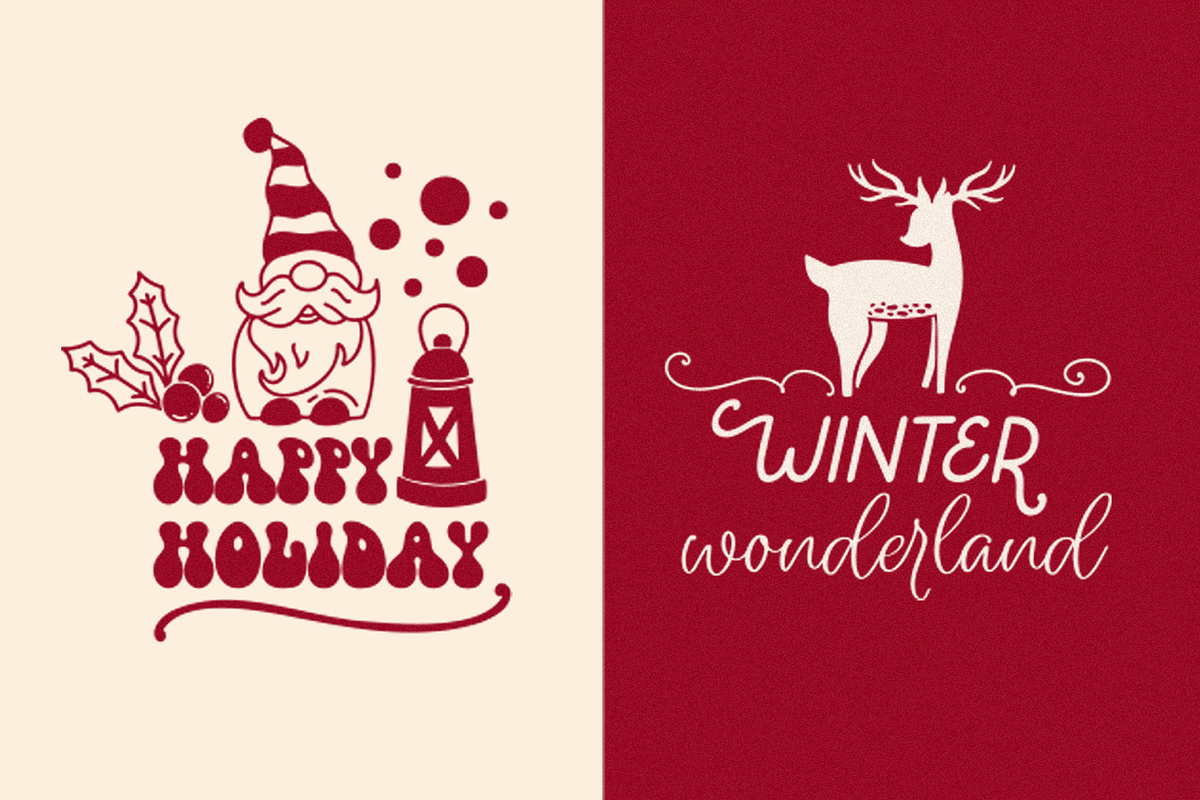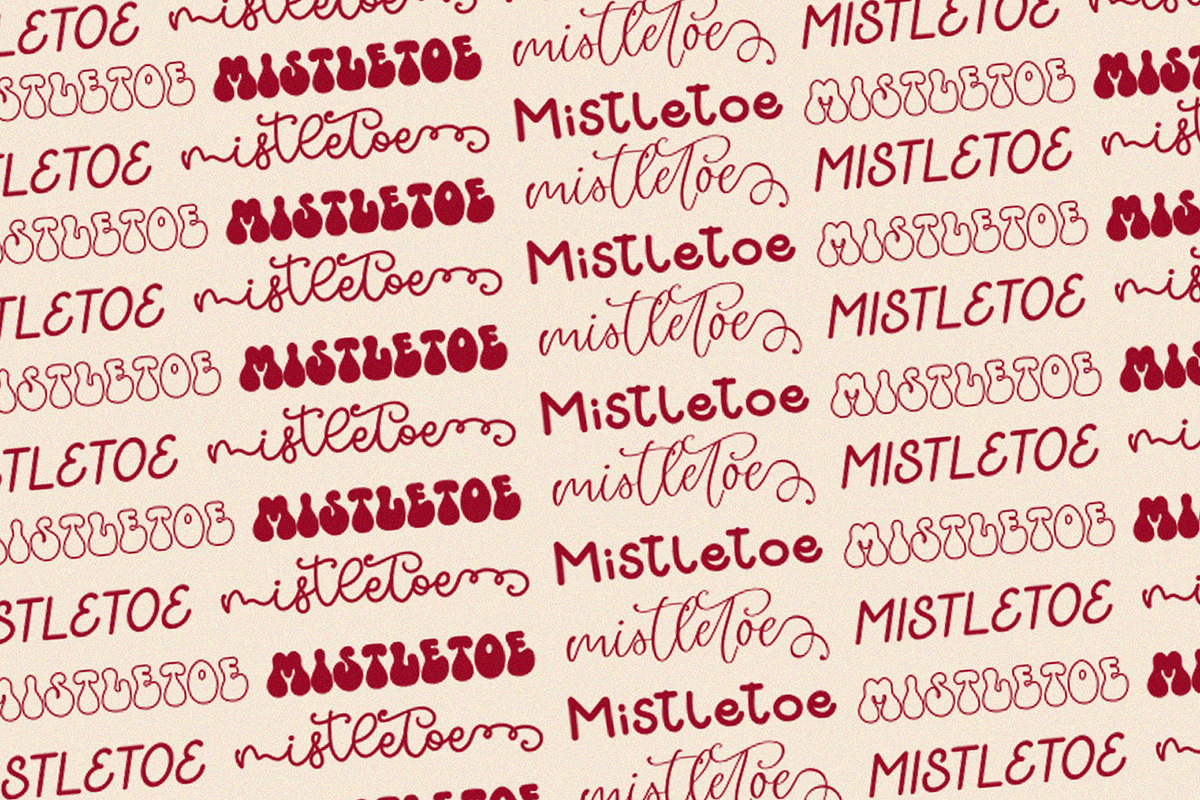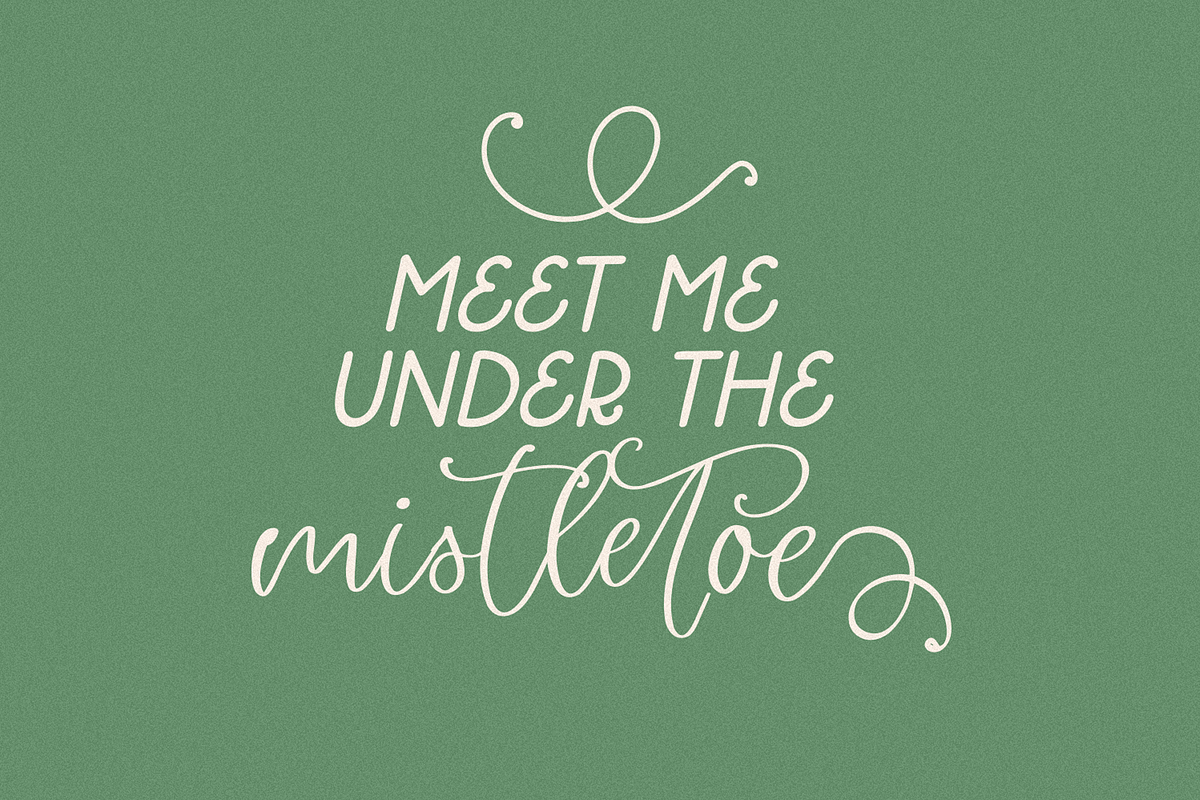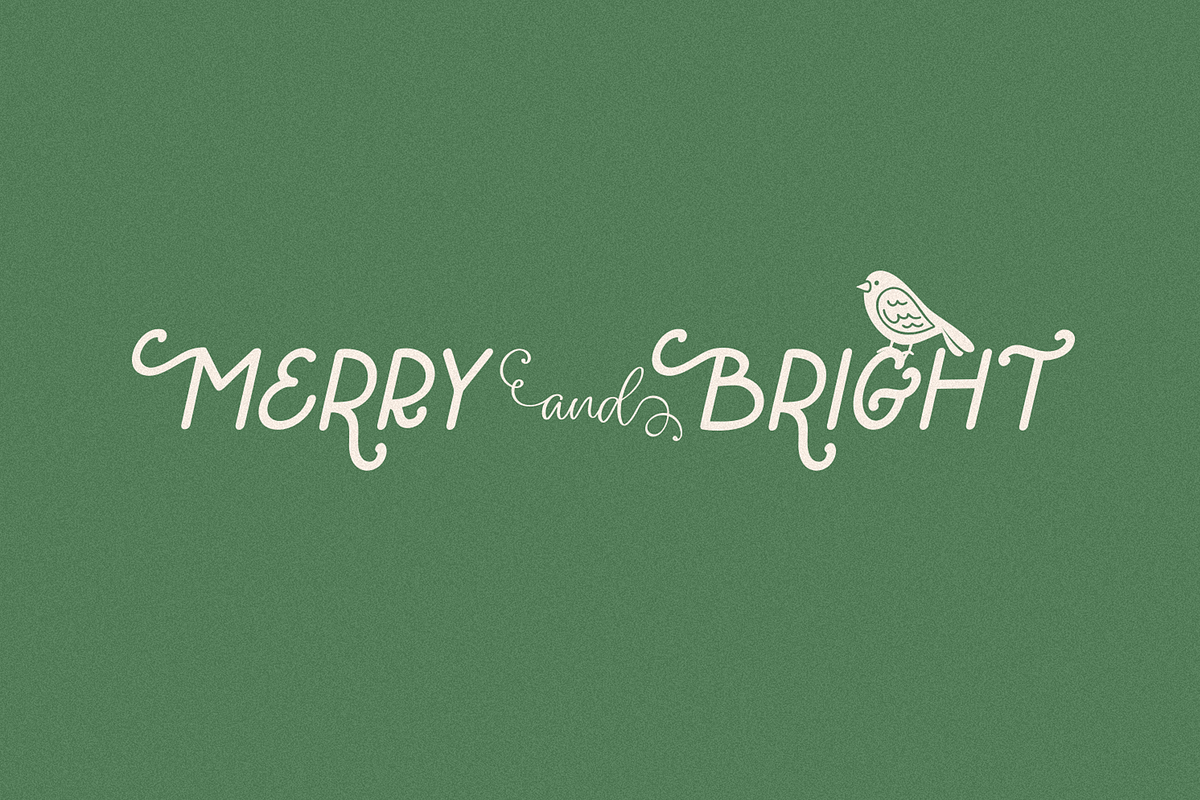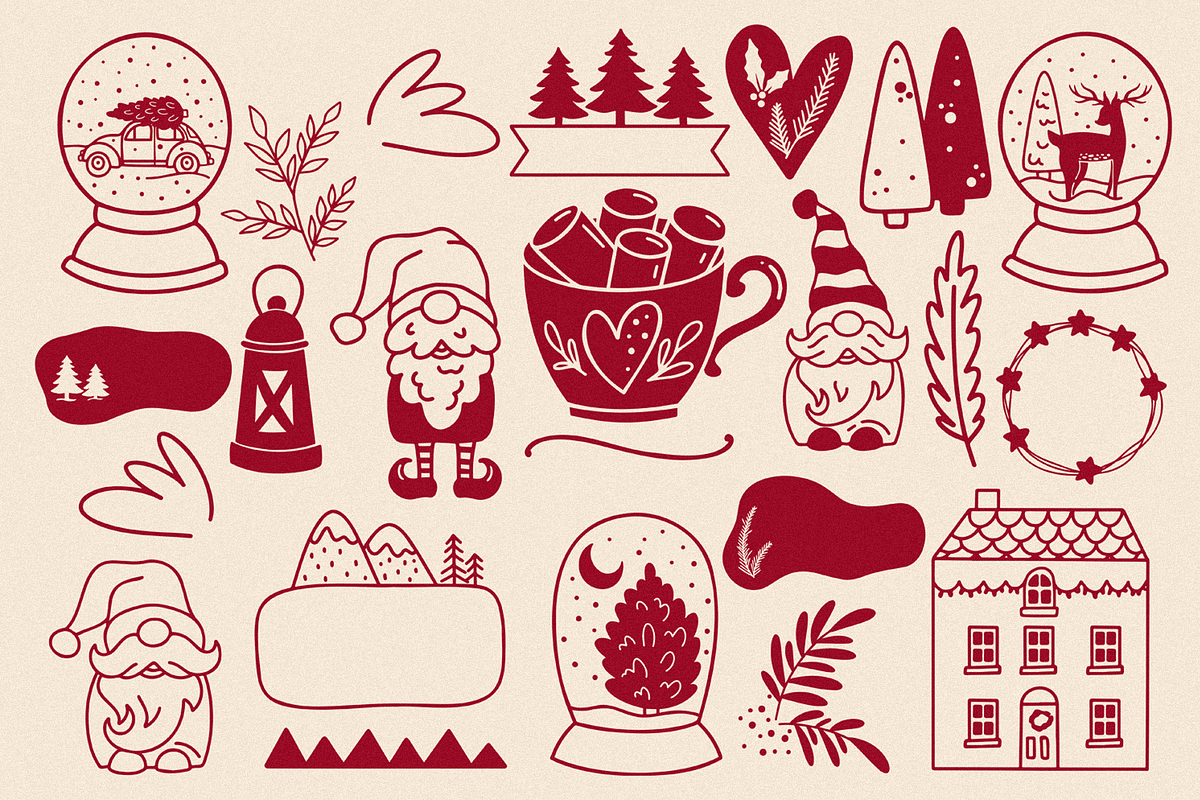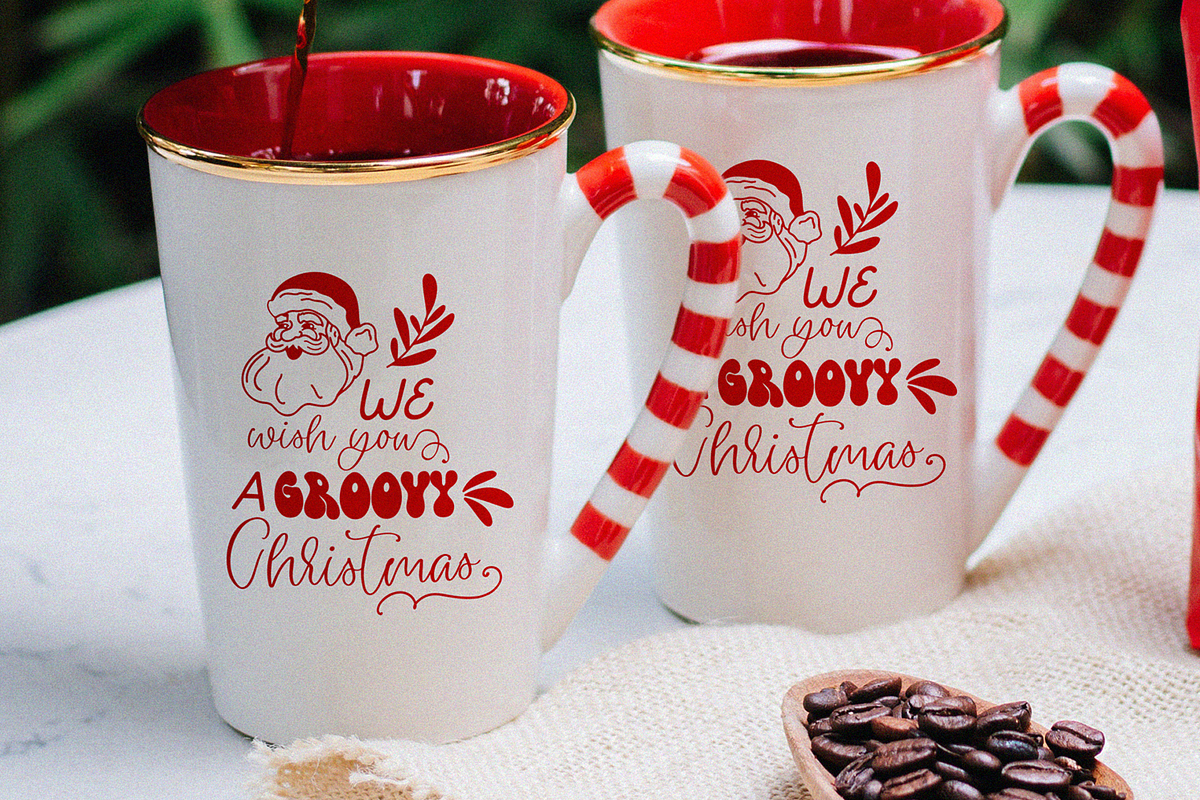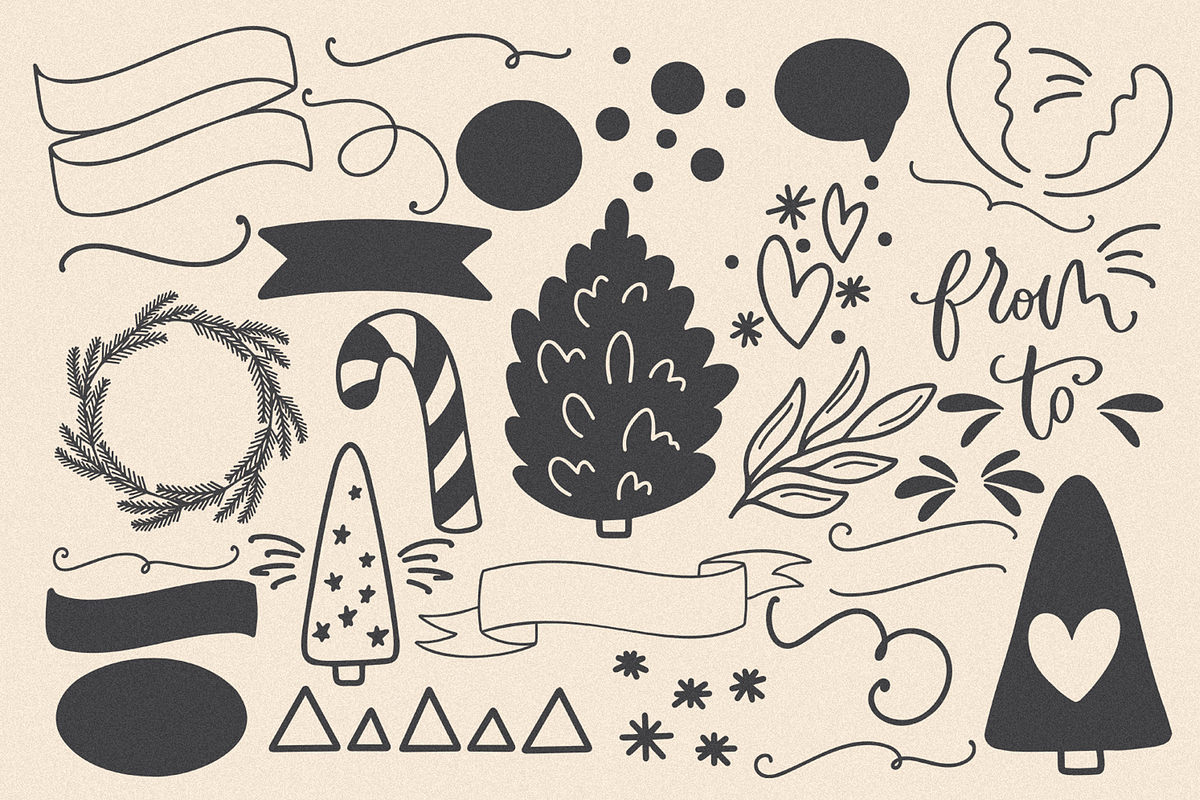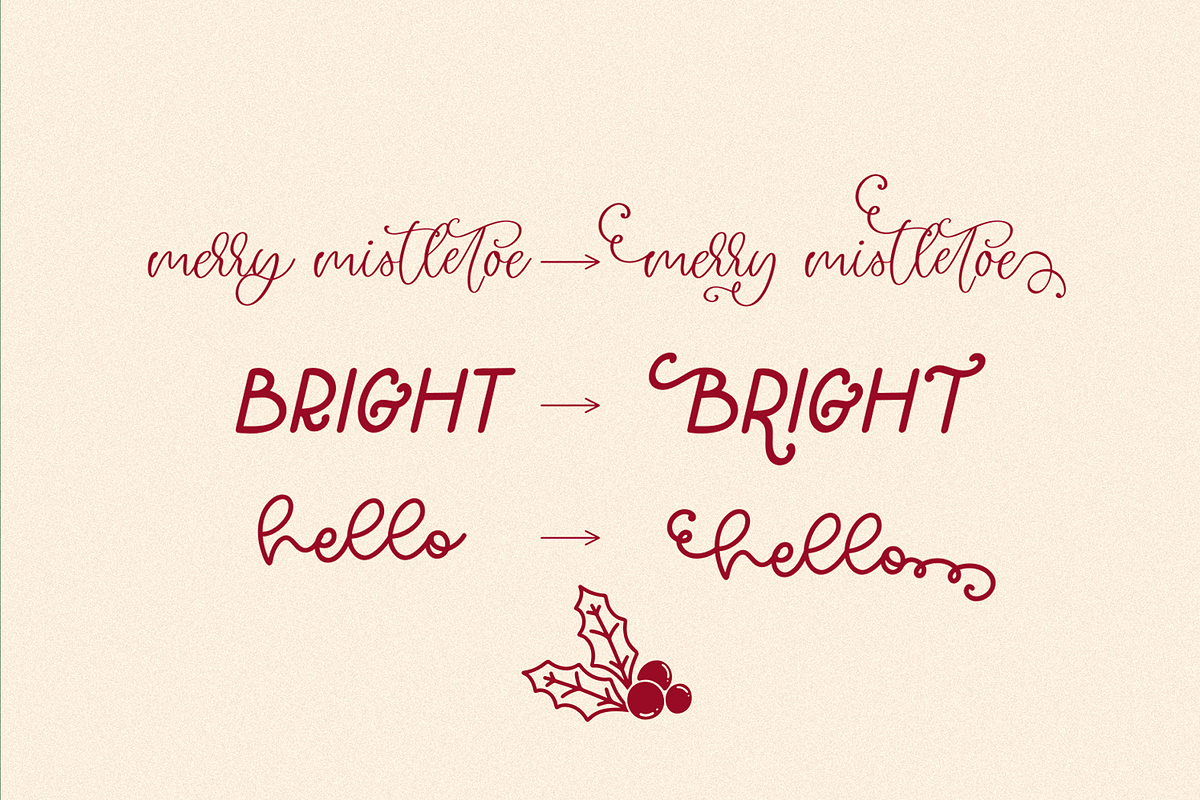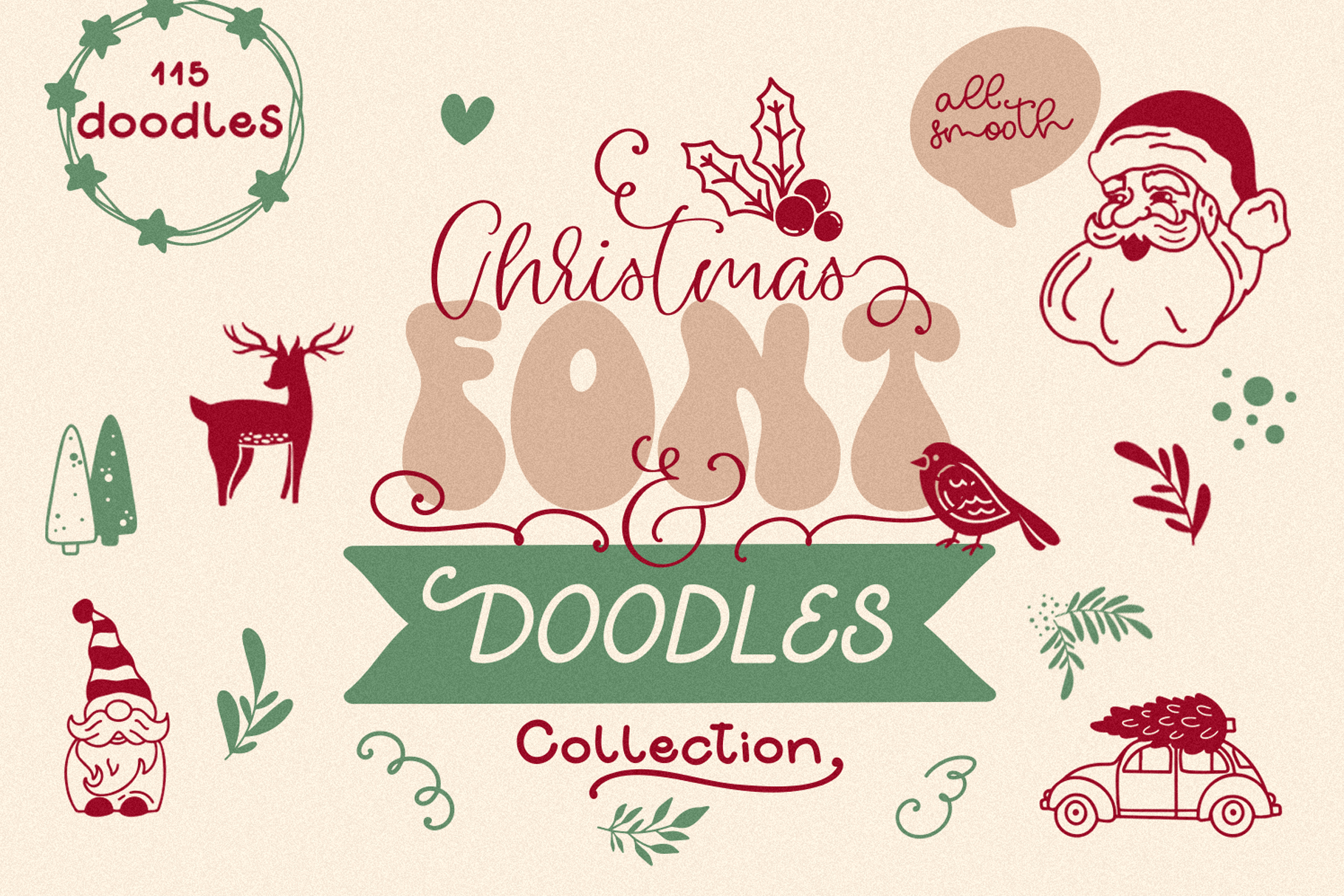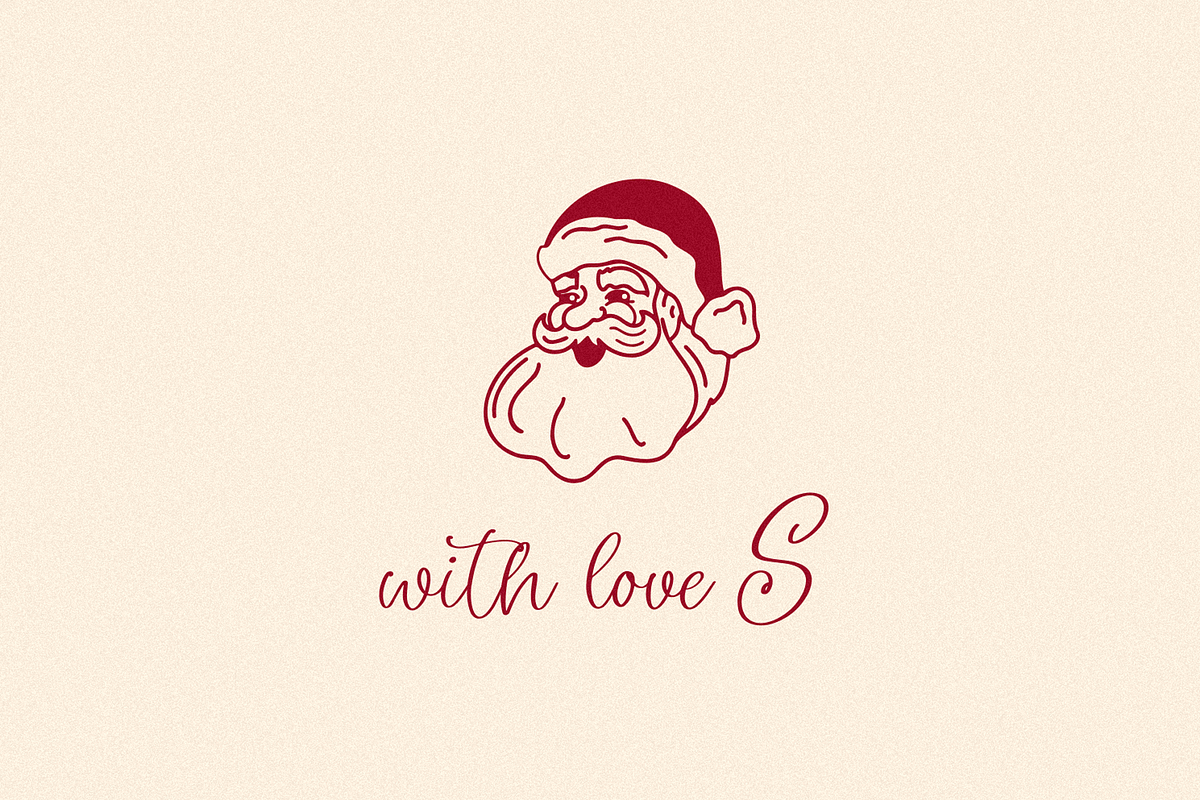
Christmas Font & Doodles collection
Collection of trending fonts and Christmas doodles that perfectly combine with each other. With this collection you can create a lot of designs for your holiday projects. All font and doodles are smooth, so easy to use for craft projects.
- Groovy mood - trending groovy font
- Mistletoe - beautiful script font with alternates
- Red and Green - all caps with alternates
- Star and bels - handwriting font
- December morning - handwriting script font with alternates